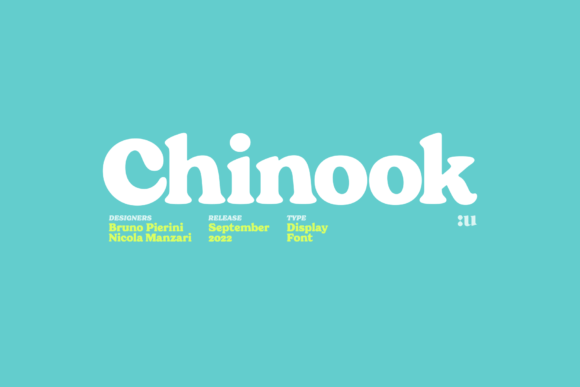
Welcome to the world of fonts where creativity and style meet! Introducing Chinook Font, the ultimate choice for music enthusiasts and design aficionados. Created by unio.creativesolutions, this incredible serif font will elevate your music covers and captivate your audience like never before.
Chinook Font pays homage to the iconic chunky look of Italian movie titling from the 70s and 80s, adding a vintage flair that is both nostalgic and trendy. But don't be fooled by its retro charm - this font is versatile and adaptable to any contemporary context. Its balanced and soft text typesetting ensures that your message is delivered with elegance and sophistication.
Inspired by the timeless classic "Cooper Black", Chinook Font takes it a step further by incorporating modern letter shapes. The rounded serifs and fluffy overall appearance give this font a unique character that is bound to leave a lasting impression. Its heavy appearance makes it perfect for high-impact design, making it ideal for headlines, titling, branding, and logotypes.
But what sets Chinook Font apart from the rest? It's not just about its stunning aesthetics. This font has been carefully crafted to evoke emotions and create a connection with your audience. Its bold and expressive nature will amplify the mood of your music covers, drawing listeners in and enticing them to hit that play button.
Whether you're a musician, a graphic designer, or a music lover who appreciates beautiful visuals, Chinook Font is a must-have in your creative toolkit. With its rich history, contemporary adaptability, and ability to evoke emotions, this font is the perfect choice to enhance your music covers and elevate your brand.